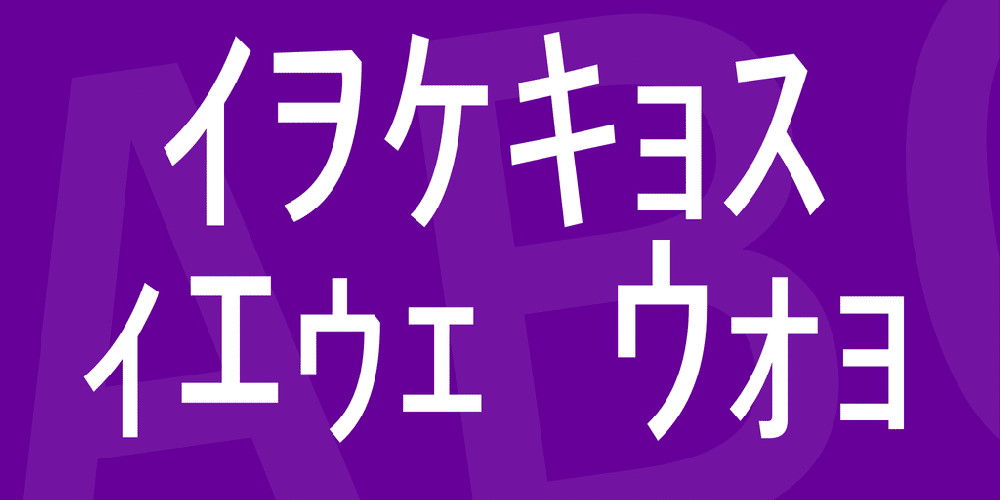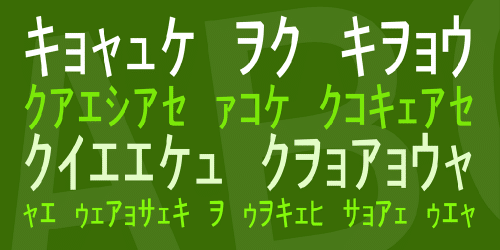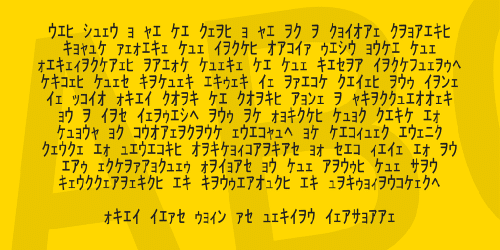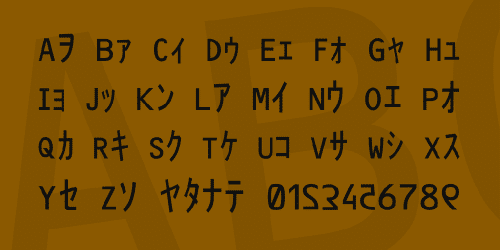
Matrix Code NFI Font is the font used for the Matrix Code Movie. This font is designed by Norfok Incredible Font Design. You can use this font for personal purpose.